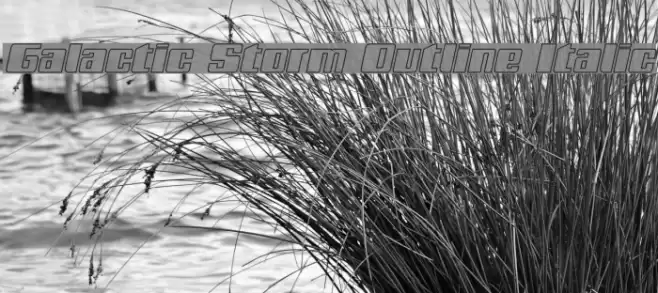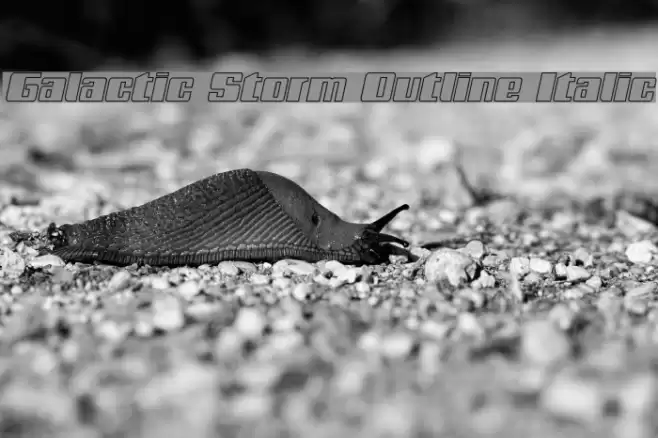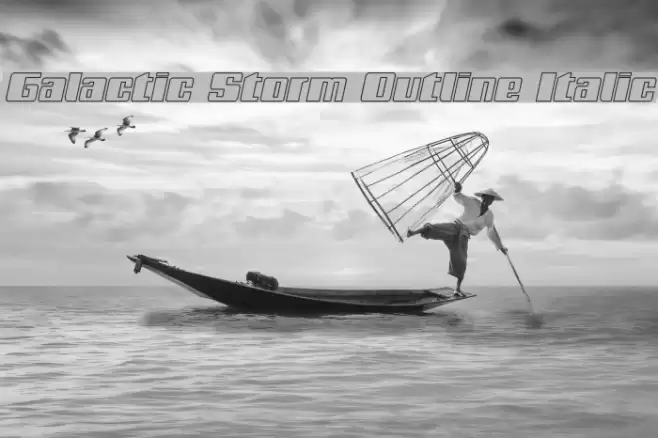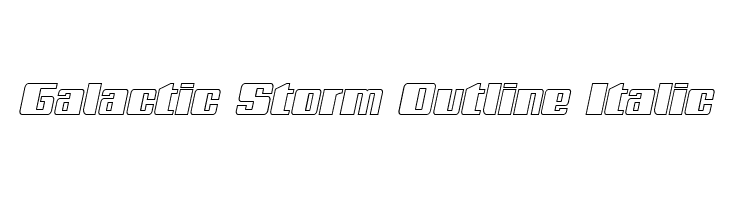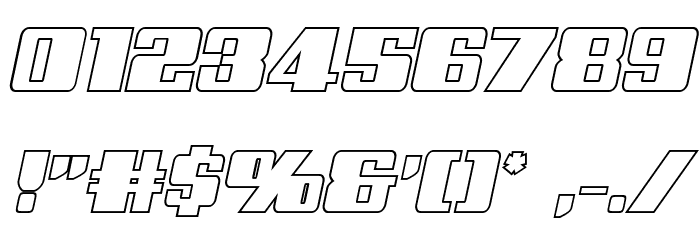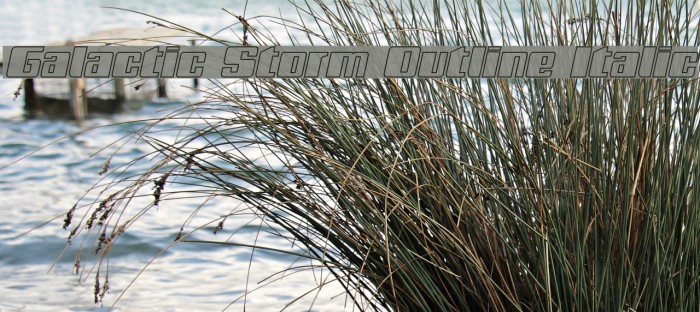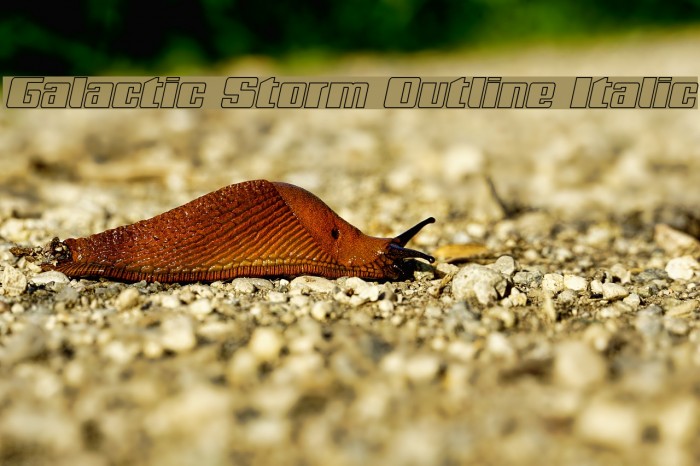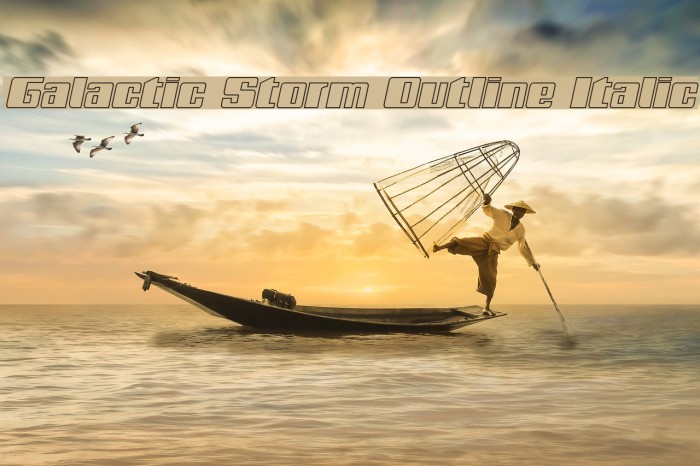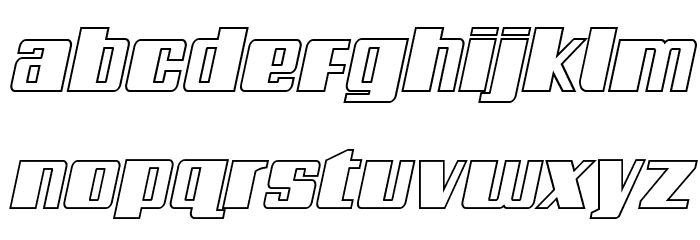
Galactic Storm Outline Italic
This font features a futuristic and dynamic outline style, with each character exhibiting a bold, angular design. The italic slant adds a sense of motion and speed, making it ideal for projects that require a modern and energetic feel. The uppercase and lowercase letters maintain a consistent geometric form, while the numerals and special characters complement the overall aesthetic. The outline effect provides a unique visual appeal, allowing for creative layering and color use in design projects.
A futuristic, italic outline font with bold, angular characters.
- Proposed Projects: Ideal for sci-fi themed posters, video game titles, and modern branding projects.